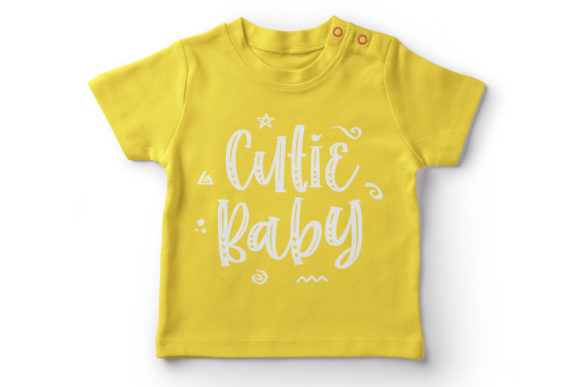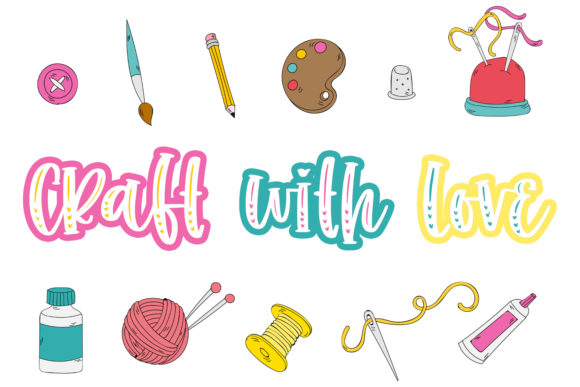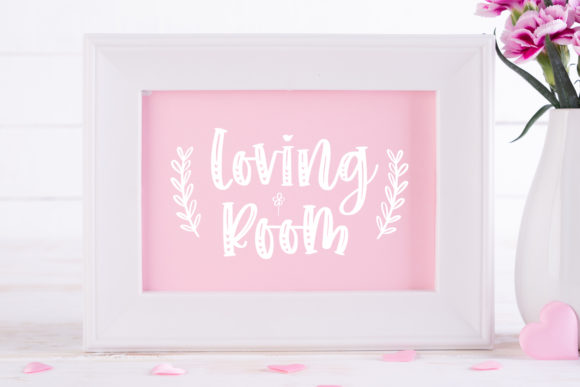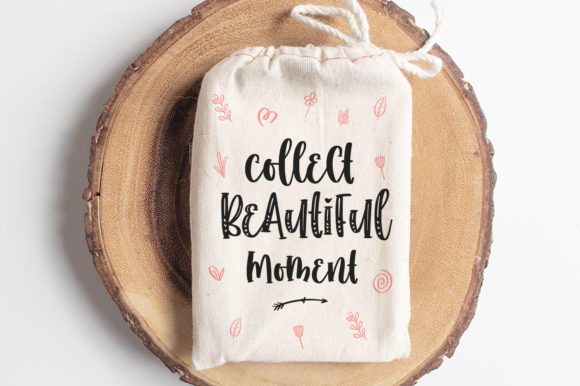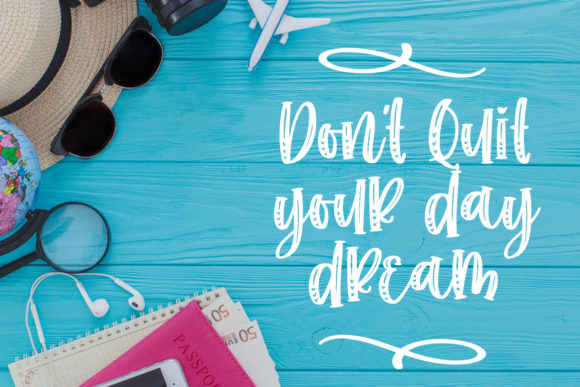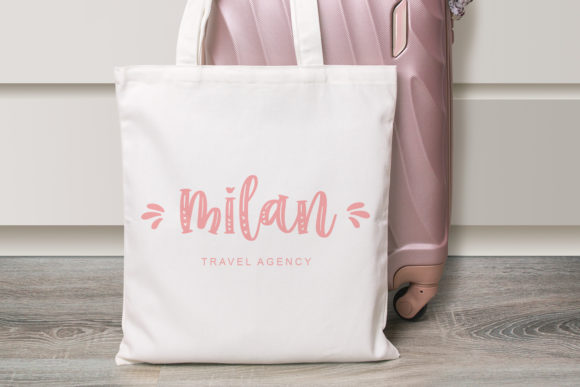
Discover the Sweet Spot in Handwritten Fonts
Have you ever stumbled upon a font that makes you feel like a kid in a candy store? The one that makes you want to create something beautiful and whimsical, just for the sake of it? That’s exactly what happened to us when we discovered the Choco Matcha Font. This sweet and quirky handwritten font is a game-changer for designers, and we can’t wait to share its magic with you.
With its incredibly versatile style, Choco Matcha Font is perfect for creating gorgeous wedding invitations, beautiful stationary art, eye-catching social media posts, and much more! Its unique charm makes it a valuable addition to any designer’s toolkit, allowing you to add a personal touch to your projects and make them truly stand out. Whether you’re a seasoned pro or just starting out, the Choco Matcha Font is sure to become your new favorite go-to font.
Key Features of Choco Matcha Font
- Unique Characteristics: Choco Matcha Font features a unique blend of Japanese and Western typography, with a distinctive matcha-inspired design and a rich, chocolatey tone.
Designer Review: Choco Matcha Font
First of all, I want to say that I’m impressed by the unique aesthetic of the Choco Matcha Font. The combination of matcha green and chocolate brown colors creates a visually appealing contrast that’s sure to catch the eye. ✨ I love how the font is playful and whimsical, making it perfect for brands that want to stand out from the crowd.
One of the standout features of the Choco Matcha Font is its versatility. It can be used for a wide range of applications, from logos and branding to packaging and digital designs. The font is also highly customizable, allowing designers to adjust the color, size, and style to suit their needs. ✨ Additionally, the font is highly legible, making it perfect for body text and headings.
Limitsations
- ⚠️ The font may not be suitable for formal or professional applications, as it can come across as too playful or immature.
- ⚠️ The font may not be ideal for text-heavy designs, as the playful nature of the font can make it difficult to read large amounts of text.
Overall, I think the Choco Matcha Font is a great addition to any designer’s toolkit. While it may have some limitations, its unique aesthetic and versatility make it a great choice for brands and designers looking to add a touch of personality to their designs.
The Choco Matcha font is perfect for adding a touch of elegance and sophistication to your designs. Here are some tips and common use cases:
- Use it for invitations, menus, and other formal documents.
- Pair it with other fonts to create a unique and eye-catching combination.
- Experiment with different font sizes and styles to add visual interest.